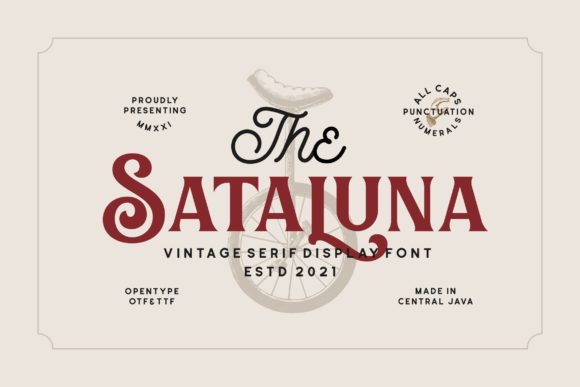
Immerse yourself in the captivating world of Sataluna, where vintage charm meets modern sophistication. This exquisite display font, handcrafted by ovoz.graphics, is a symphony of elegance and boldness, designed to elevate every creative endeavor you embark upon.
Sataluna's meticulously crafted glyphs and seamless ligatures dance across the page, inviting you to express your individuality and artistic flair. Effortlessly create captivating cards that resonate with warmth and nostalgia, or design striking branding that exudes timeless appeal. Its versatility knows no bounds, extending to labels adorned with intricate details that ignite imagination.
Unleash your creativity and let Sataluna's vintage-inspired charm add a touch of retro magic to your designs. Its bold presence commands attention, while its intricate details whisper a tale of bygone eras. Whether you're a seasoned designer or just starting your artistic journey, Sataluna will guide you effortlessly towards captivating creations.
Indulge in the beauty of Sataluna, where imagination takes flight and artistic dreams become reality. Every letter, every stroke, is a testament to the transformative power of typography. Embrace the captivating world of Sataluna today, and unlock the endless possibilities that await your creative spirit.